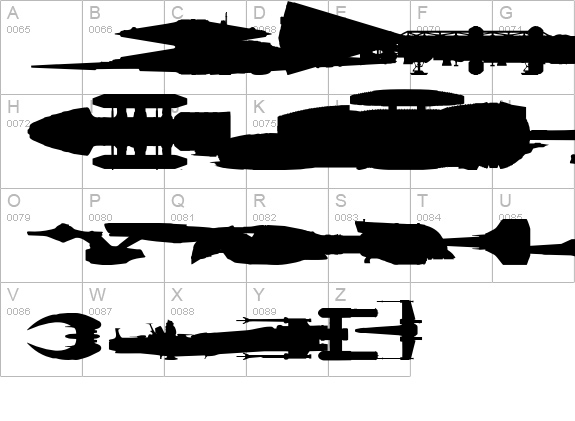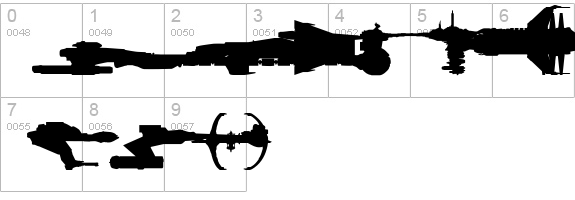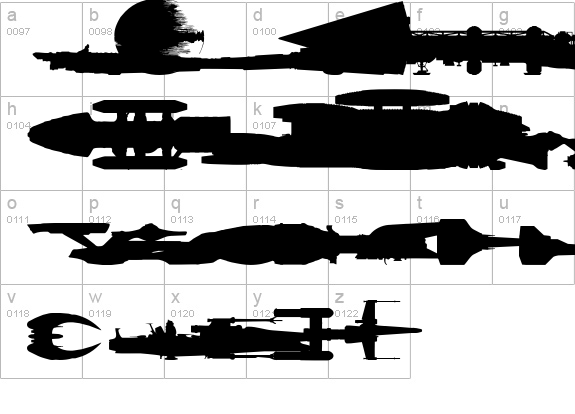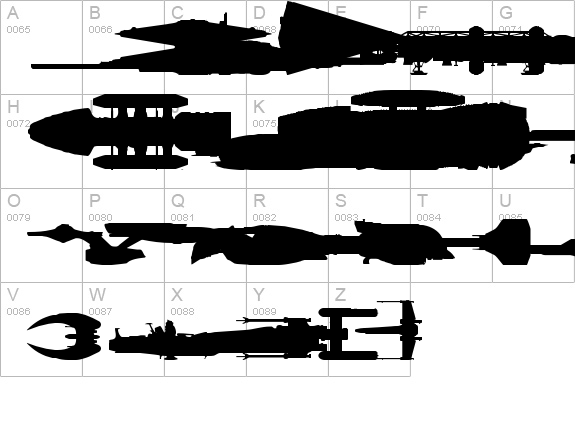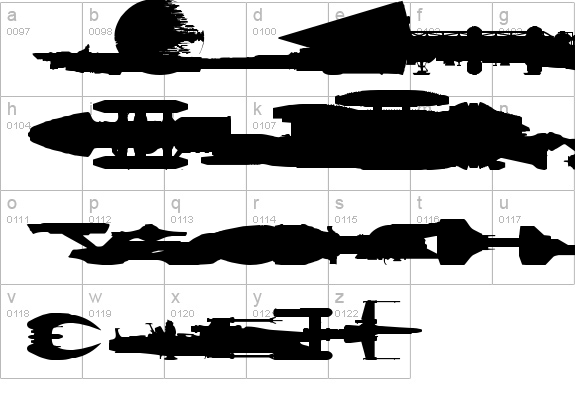
Introducing Famous Spaceships font, a captivating and futuristic typeface that takes inspiration from the sleek and dynamic design of renowned spacecrafts. This unique font features bold lines, sharp angles, and a modern aesthetic that exudes a sense of adventure and innovation. Famous Spaceships font is perfect for projects that require a touch of sci-fi flair, whether you're designing posters for a space-themed event, creating digital artwork for a science fiction novel, or crafting eye-catching logos for a tech company. Best of all, Famous Spaceships font is available for free download exclusively at FontsMarket.com. Embrace the future and elevate your designs with this cutting-edge font today!